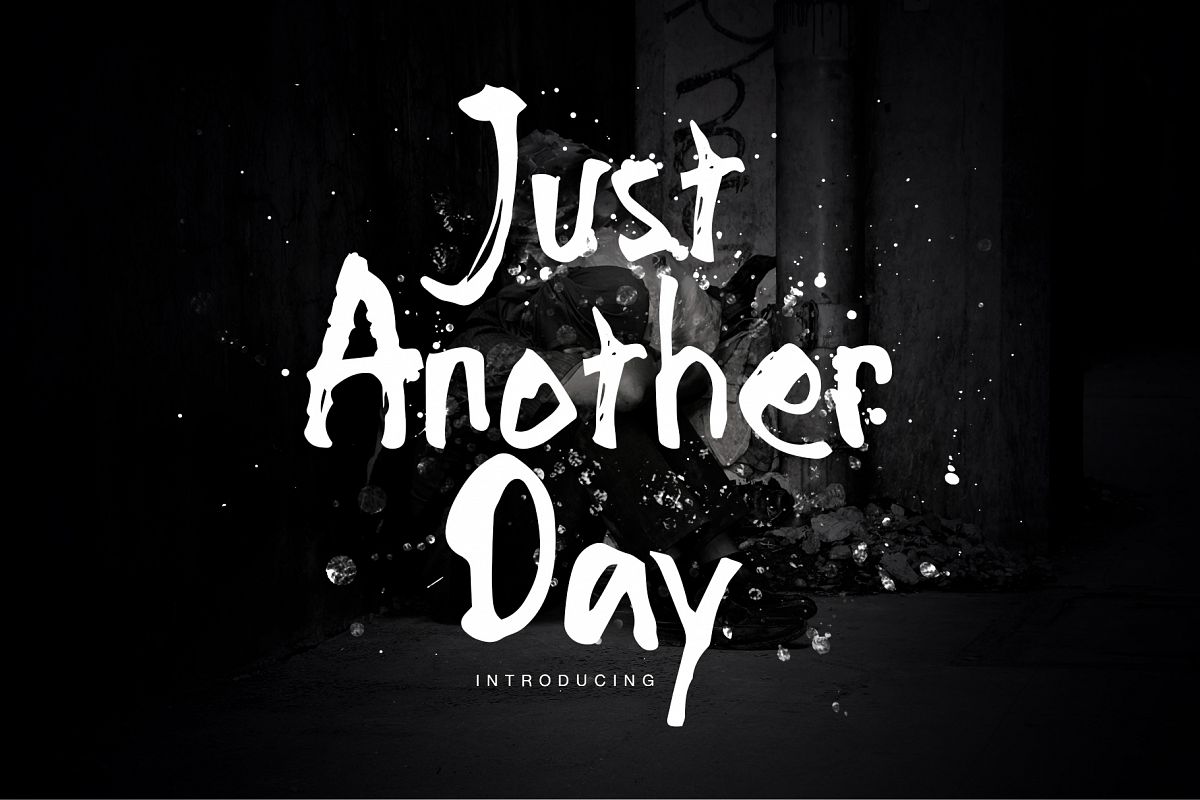
Just Another Day font
Introducing Just Another Day font, rough font from manual hand drawn
real brush, its bold, rough and messy. You can use it for cover profile
social media, instagram post, clothing, books,album covers, poster, any
printable project .etc